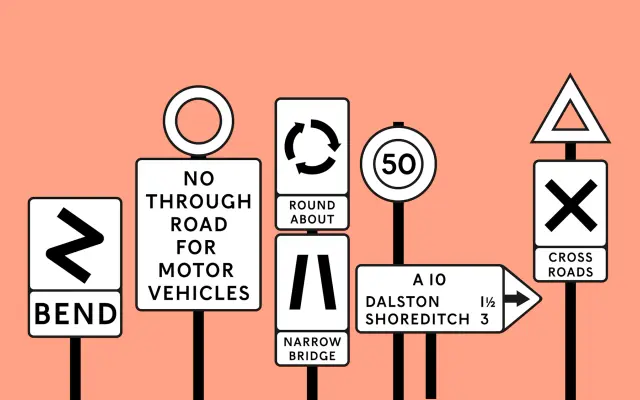
F37 Beckett
A fifteen-style sans from F37 that pays homage to the British Ministry of Transport's 1933 pre-Worboys road sign alphabet.
A sans family from F37 Foundry drawn as a homage to the British Ministry of Transport's 1933 alphabet used on pre-Worboys road signs, with seven weights and matching italics plus an Extras style. F37 set its historical context against the 1963 Worboys Committee and the later Kinneir and Calvert signage system, giving Beckett a sense of British vernacular and twentieth-century infrastructure. Pairs in the foundry's suggestions with F37 Caslon Text, F37 Ginger Arabic Soft and F37 Blanka, suiting editorial, transport, cultural and heritage brand work.
F37 describe Beckett as a homage to the British Ministry of Transport's 1933 alphabet used on pre-Worboys road signs, with later context around the Worboys Committee and Kinneir and Calvert.